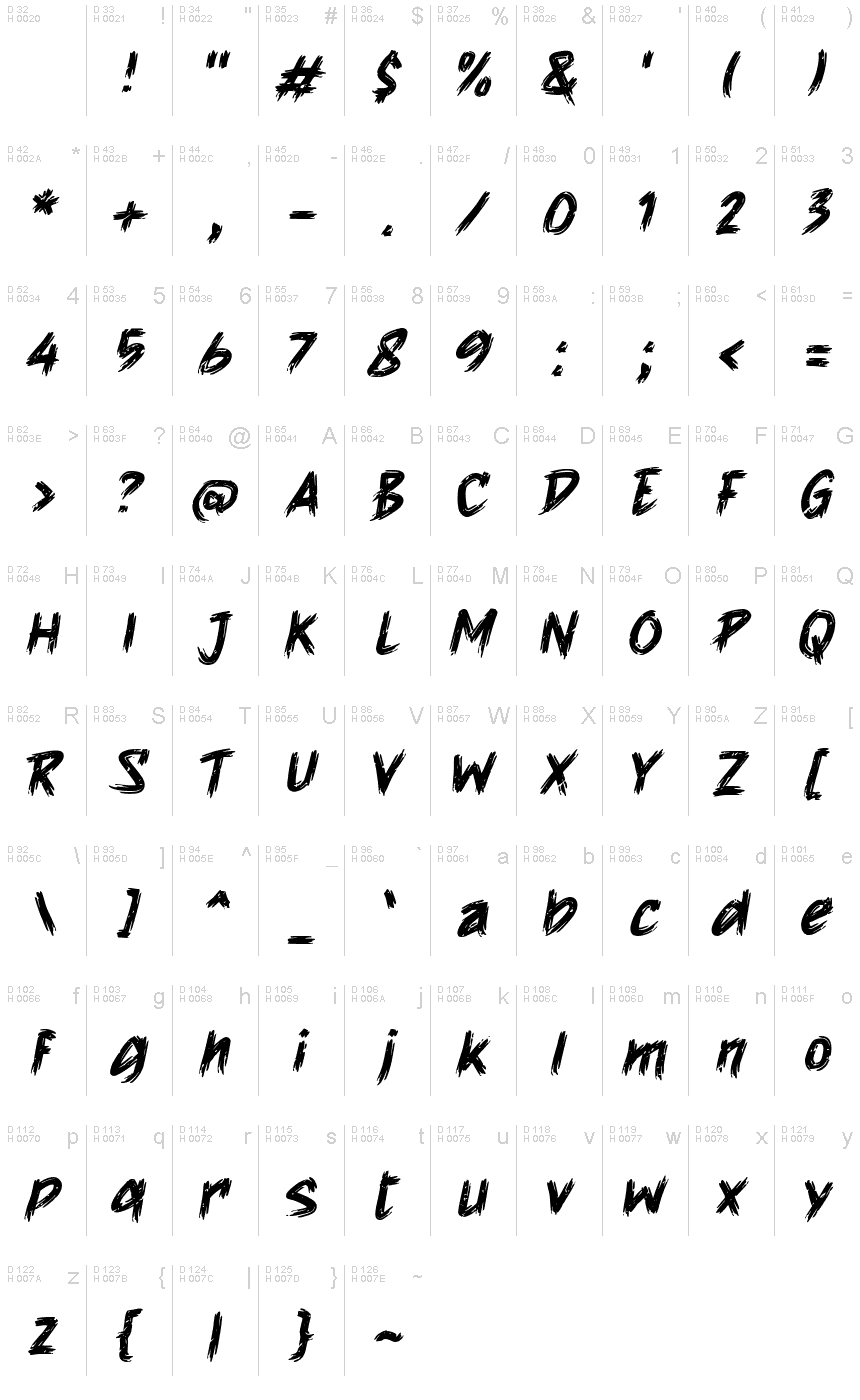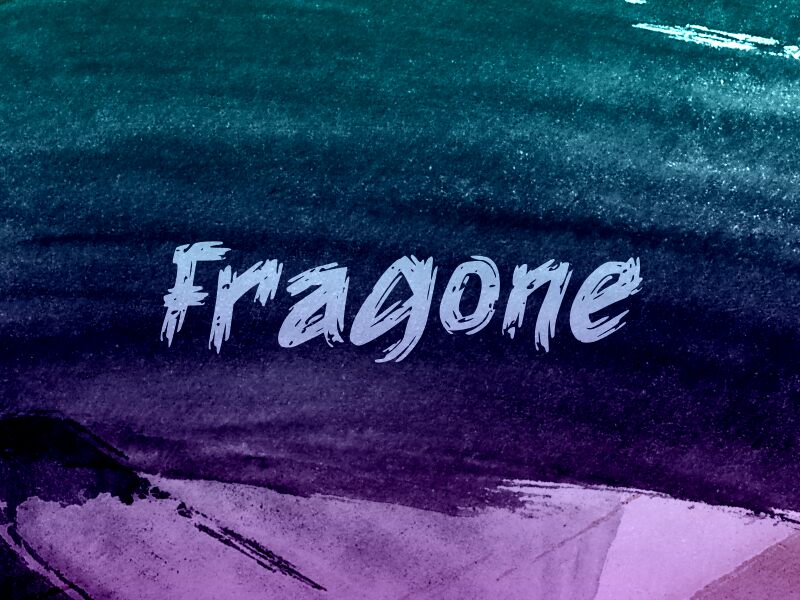
Fragone
Fragone, designed by wep, is a distinctive script font that embodies the raw energy of street art with its trash style aesthetic. The semi-bold weight adds a substantial presence to its semi-condensed form, striking an intriguing balance between readability and artistic flair. The deliberate irregularities in Fragone’s characters bring a sense of movement and spontaneity to text, making it perfect for projects that demand an edgy, unrefined look.
The font's dynamic strokes and rough edges suggest a handcrafted quality that resonates with urban vibes. This makes Fragone ideal for eye-catching headlines, bold branding initiatives, or any creative endeavor looking to project authenticity and attitude. With its unique blend of structure and disorder, Fragone stands out as more than just a typeface—it's a statement piece ready to inject personality into your designs.